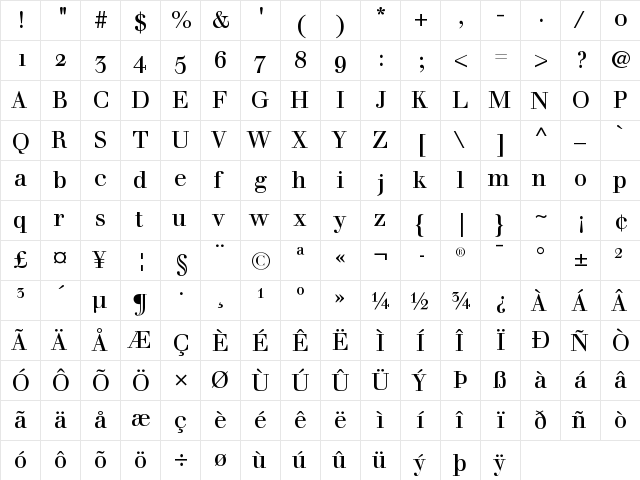
Justus Oldstyle
Design Context for Justus Typeface
Justus carries the refined structure of traditional serif typography, with bracketed terminals and considered proportions that communicate credibility and craft.
Pro Tip: Set Justus with slightly loose tracking in headlines to let each letterform's detail read clearly at display sizes.